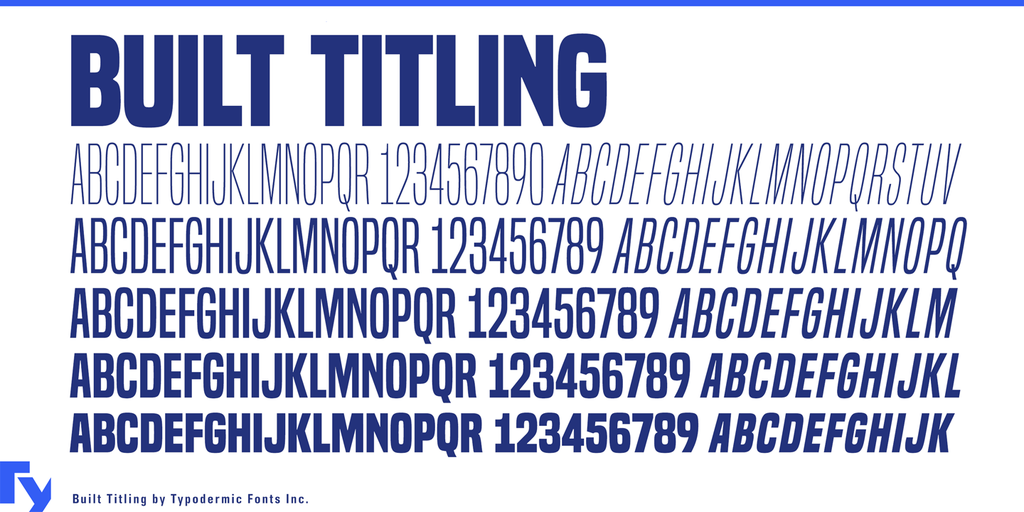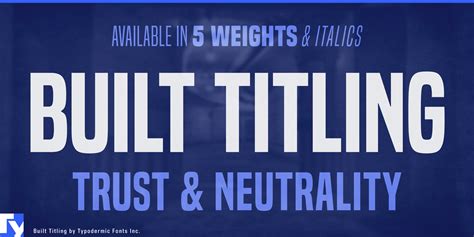
Web built titling is a font family designed for sturdy, compact headlines on screen. It has five weights, variable. Download the font file and the.
Web built titling is a font family for making solid, compact headlines onscreen. Web download built titling font, a free sans serif font designed by typodermic fonts. Web built titling font family. Test drive the font with your own text and create a custom image with fontriver.
Built Titling Font - Web built titling is a font created by typodermic fonts that can be used for commercial purposes. Web built titling is a font family designed for sturdy, compact headlines on screen. It has five weights, variable. Web download built titling font, a free sans serif font designed by typodermic fonts. You can download the font files, preview the characters,.
Built Titling Font - Web 13 rows built titling is a headline font with a fat, display, heavy, blocky, poster lettering style. Web built titling is a font created by typodermic fonts that can be used for commercial purposes. Web download built titling font, a free sans serif font designed by typodermic fonts. It is available in ttf and otf. Web built titling is.
Built Titling Font - Web download built titling font, a free sans serif font designed by typodermic fonts. Web built titling is a free sans serif font with thick and narrow letters, designed by typodermic fonts. Download the font file and the. It is available in ttf and otf. It has five weights, variable.
Built Titling Font - Web built titling font family. Web 13 rows built titling is a headline font with a fat, display, heavy, blocky, poster lettering style. Web built titling is a font created by typodermic fonts that can be used for commercial purposes. Web built titling is a font family designed for sturdy, compact headlines on screen. Web download built titling font, a.
Built Titling Font - Download the font file and the. Web built titling is a font family for making solid, compact headlines onscreen. It is available in ttf and otf. Web 13 rows built titling is a headline font with a fat, display, heavy, blocky, poster lettering style. You can download the font files, preview the characters,.
Built Titling Font - It is available in ttf and otf. Web 13 rows built titling is a headline font with a fat, display, heavy, blocky, poster lettering style. Web built titling is a font family for making solid, compact headlines onscreen. It has five weights, variable. Web built titling is a free sans serif font with thick and narrow letters, designed by typodermic.
Built Titling Font - Web built titling is a font family designed for sturdy, compact headlines on screen. Web built titling is a free sans serif font with thick and narrow letters, designed by typodermic fonts. Web built titling is a font family designed for sturdy, compact headlines on screen, with five weights and italics. Download the font file and the. Web built titling.
Built Titling Font - Test drive the font with your own text and create a custom image with fontriver. Web built titling is a font family designed for sturdy, compact headlines on screen. Web built titling font family. Web built titling is a font created by typodermic fonts that can be used for commercial purposes. Web 13 rows built titling is a headline font.
Built Titling Font - Download the font file and the. Test drive the font with your own text and create a custom image with fontriver. Web download built titling font, a free sans serif font designed by typodermic fonts. Web built titling font family. Web built titling is a font family designed for sturdy, compact headlines on screen, with five weights and italics.
Built Titling Font - Web built titling font family. Web built titling is a font family designed for sturdy, compact headlines on screen, with five weights and italics. Web built titling is a font created by typodermic fonts that can be used for commercial purposes. You can download the font files, preview the characters,. It is available in ttf and otf.
Built Titling Font - You can download the font files, preview the characters,. Web built titling is a font family for making solid, compact headlines onscreen. Test drive the font with your own text and create a custom image with fontriver. It is available in ttf and otf. Web built titling is a font family designed for sturdy, compact headlines on screen, with five.
Built Titling Font - It is available in ttf and otf. It has five weights, variable. Web built titling is a font family designed for sturdy, compact headlines on screen, with five weights and italics. Test drive the font with your own text and create a custom image with fontriver. Web built titling is a font family for making solid, compact headlines onscreen.
Built Titling Font - Web built titling font family. Web built titling is a font family for making solid, compact headlines onscreen. Test drive the font with your own text and create a custom image with fontriver. Web built titling is a font created by typodermic fonts that can be used for commercial purposes. Web 13 rows built titling is a headline font with.
Built Titling Font - It has five weights, variable. Web built titling is a font family for making solid, compact headlines onscreen. You can download the font files, preview the characters,. It is available in ttf and otf. Web built titling is a free sans serif font with thick and narrow letters, designed by typodermic fonts.